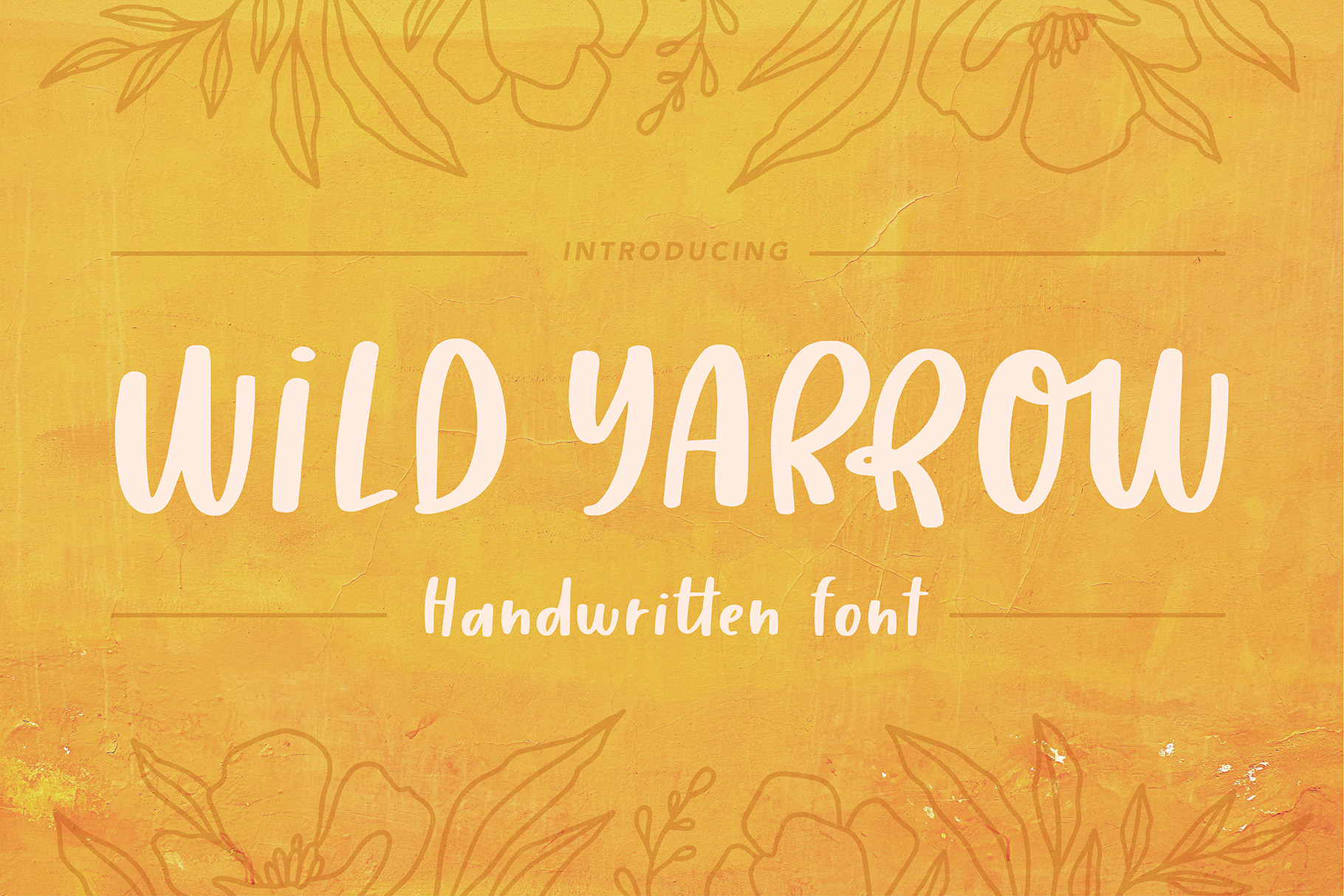
Wild Yarrow | A handwriting font
- Standard English uppercase and lowercase letters
- 32 double letter ligatures, to easily give what you type a hand lettered feel
- 21 alternate style letters, to add variation to your text
- Numbers and a large range of punctuation
- Multilingual support for the international designer.
Wild Yarrow is such a fun font that is filled with personality- perfect for adding a hand drawn feel to any project!
Some fonts can be stiff and generic because all the letters are exactly the same. Wild Yarrow includes a bunch of ligatures and alternate letters, so the same letters can have slight variations, as if you hand wrote it. It makes anything you write immediately eye catching with a hand-drawn touch, without the time consuming effort of actually writing it by hand.
Wild Yarrow includes both uppercase and lowercase letters, but can also function as an all caps font. Add emphasis to your text using capital letters and it gives the feel of a second, complimentary font.